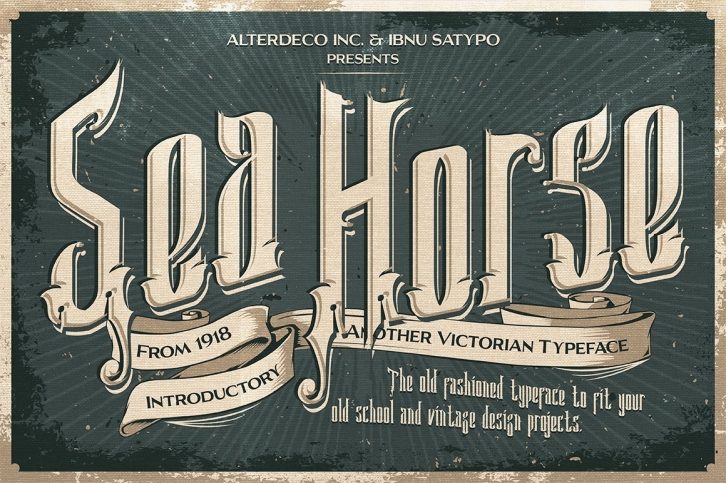
introducing our new font called Sea Horse, it's inspired by old victorian typography and sign painting. this font is perfect for your vintage greeting cards, logo, and other classical design projects. in zip file you'll find the otf, and some poster sample. if you need any help, please contact me at  thanks... and enjoy the font.